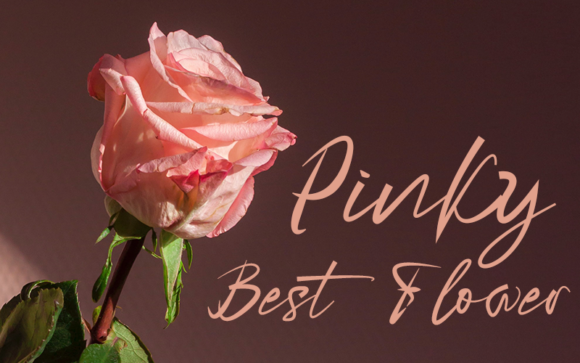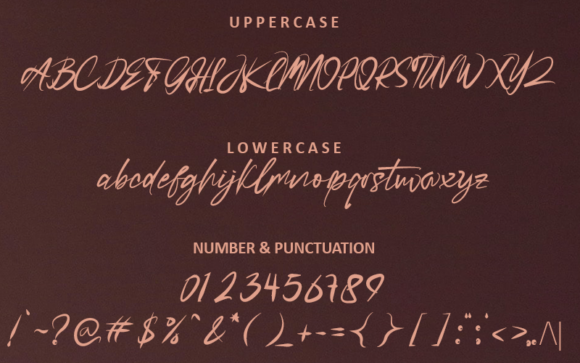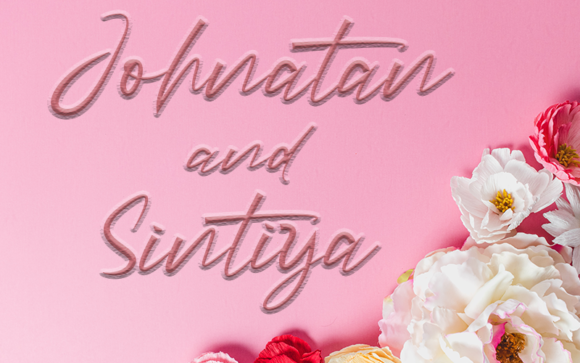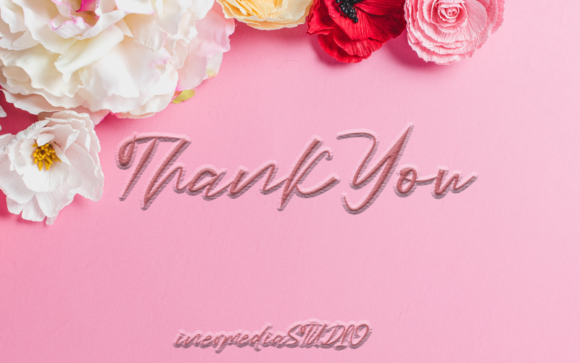
Introduction to Aurel Smith Font
Have you ever been stuck on a creative project, desperately searching for that perfect font to bring your vision to life? I know I have. It’s a feeling of frustration that’s hard to shake, until you stumble upon a game-changer. For designers and artists, finding the right font can make all the difference in elevating a project from good to great.
That’s where the Aurel Smith Font comes in – a stunning handwritten font that’s equal parts charming and elegant. Its classic calligraphy style is a masterclass in high-quality design, making it the perfect addition to any creative project.
With its free download option and transparent background, the Aurel Smith Font is a valuable design resource that’s sure to become a favorite among designers. Whether you’re working on branding, headings, or wedding designs, this font is sure to add a touch of sophistication and style to your work.
Key Features of Aurel Smith Font
- High-quality design ideal for creative projects, such as graphic design, digital art, and more.
- Designed with a unique aesthetic, making it perfect for adding a touch of elegance and sophistication to your design projects.
Honest Review: Aurel Smith Font
I recently stumbled upon the Aurel Smith Font and I must say, it’s a fantastic addition to any design resource library. This high-quality font is perfect for creative projects that require a touch of elegance and sophistication.
- ✨ The font’s high quality and clarity make it ideal for print and digital use.
- ✨ The transparent background allows for seamless integration into various design backgrounds.
- ✨ The font’s versatility makes it suitable for a wide range of creative projects, from branding to publishing.
- ⚠️ The font’s limited character set may not be suitable for projects that require a wide range of special characters.
- ⚠️ The font’s weight may not be suitable for projects that require extreme bold or light text.
Overall, I’m impressed with the Aurel Smith Font. It’s a solid addition to any design library, and its free download option makes it an excellent resource for designers on a budget. If you’re looking for a high-quality font for your next creative project, I highly recommend giving it a try.
Aurel Smith Font
The Aurel Smith Font is perfect for various creative projects, including:
Tips for Getting the Most Out of the Aurel Smith Font
For optimal results, use the Aurel Smith Font in conjunction with other design resources. Experiment with different font sizes, colors, and styles to create visually appealing designs. The font’s transparent background makes it easy to combine with other design elements.
Can I use the Aurel Smith Font with a transparent background?
Yes, the Aurel Smith Font supports transparent backgrounds, making it an excellent choice for creative projects that require a subtle or see-through effect. When using the font with a transparent background, ensure that your design application supports this feature and configure it accordingly.